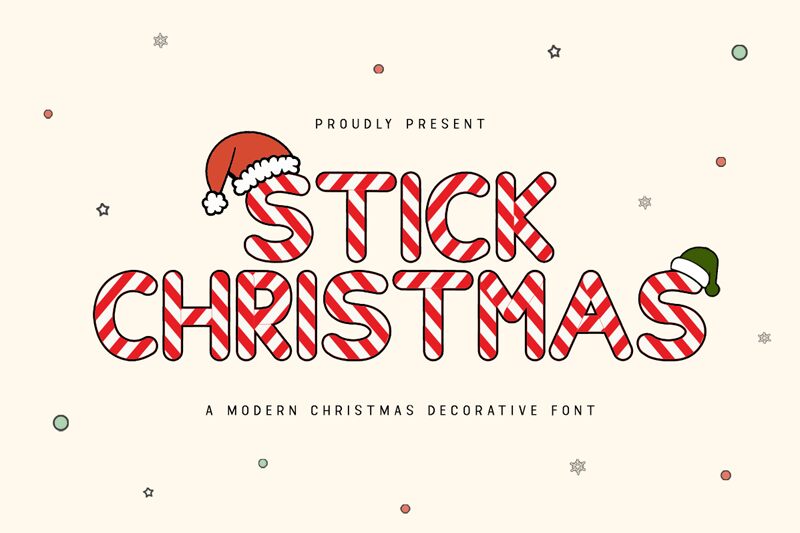
Stick Christmas font by Kong Font is a free font inspired by candy canes, one of the most recognizable holiday treats. Candy canes often decorate both Christmas trees and gingerbread houses, making this font an excellent choice for various festive-themed projects. The font is inspired by the jolly season and combines cheerfulness with style.
This decorative font can be used for a wide variety of designs and artwork. Some of them include Christmas postcards, flyers, invitations, and wrapping papers. Other uses include brochures, posters, banners, social media posts, Christmas ornaments, and voucher designs.